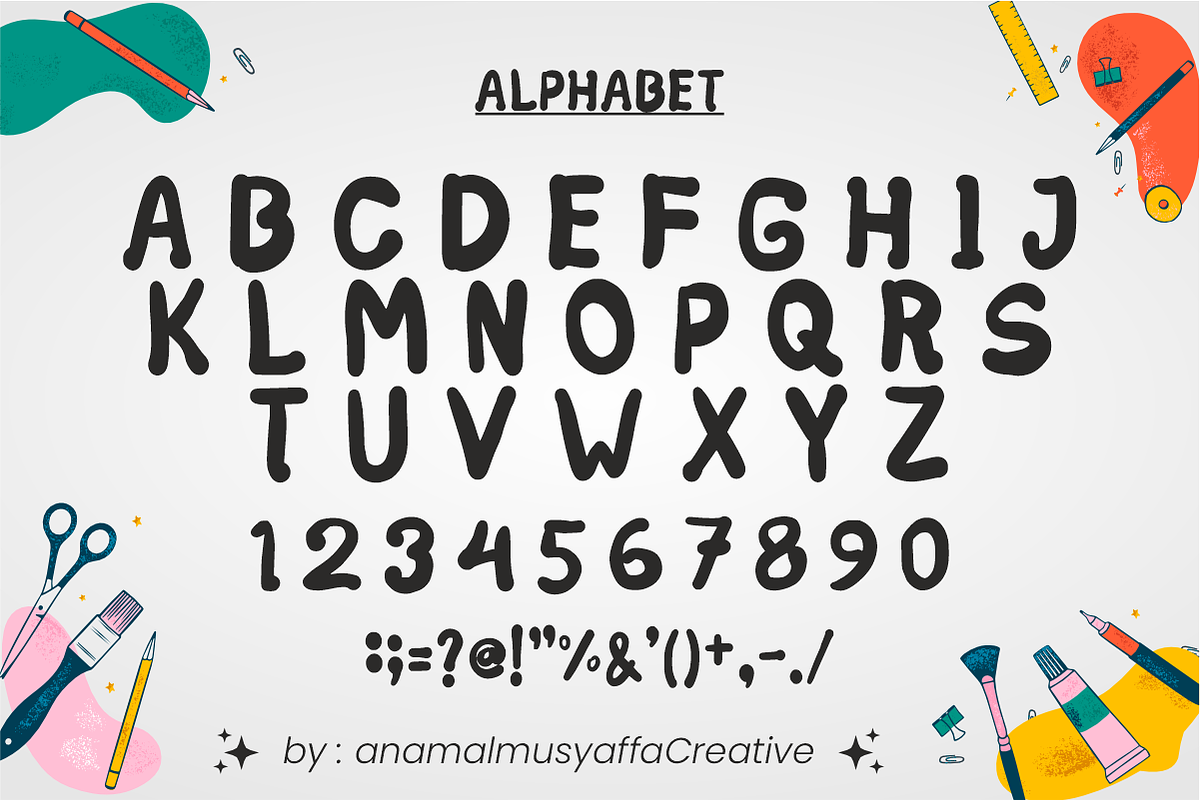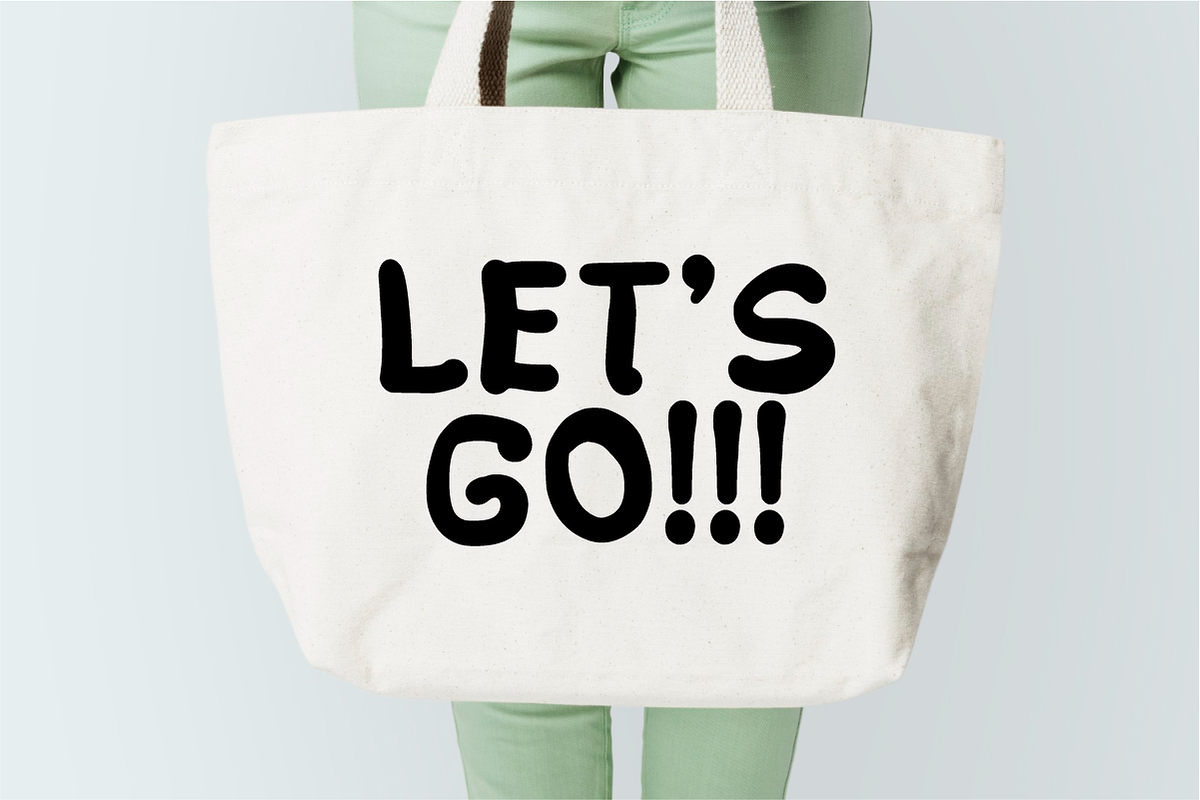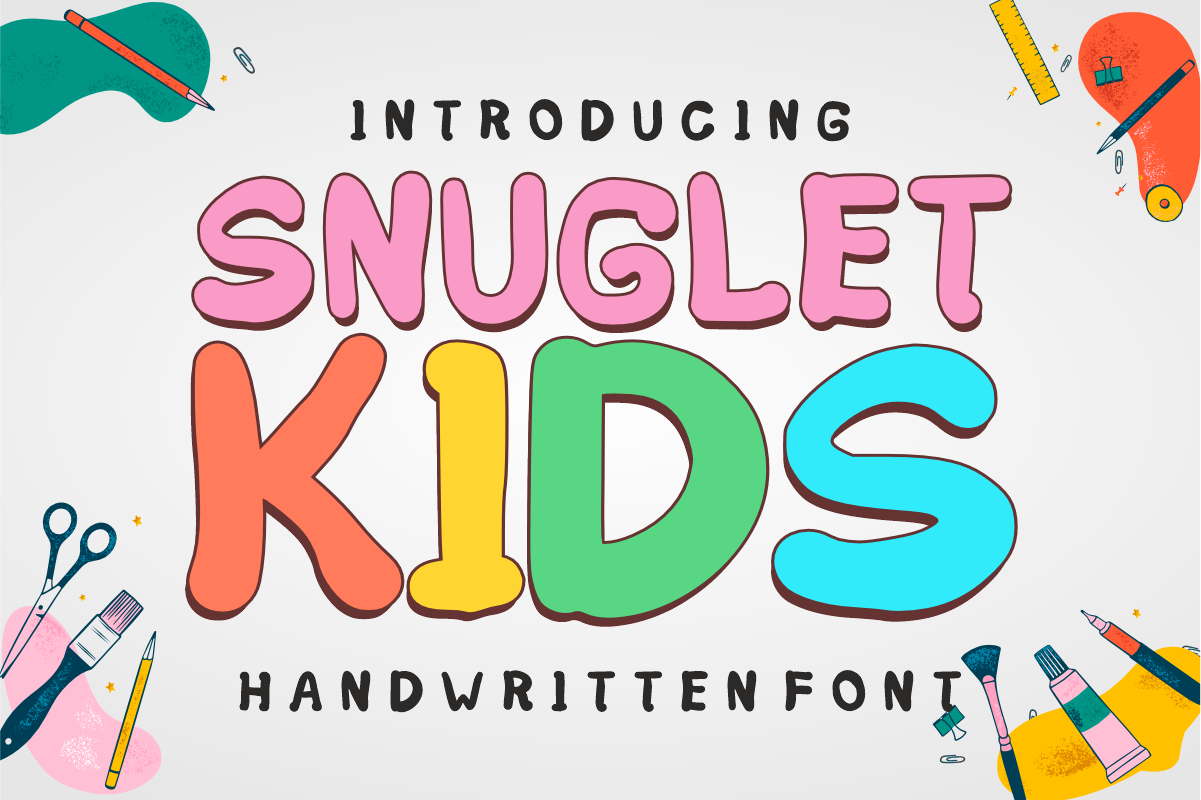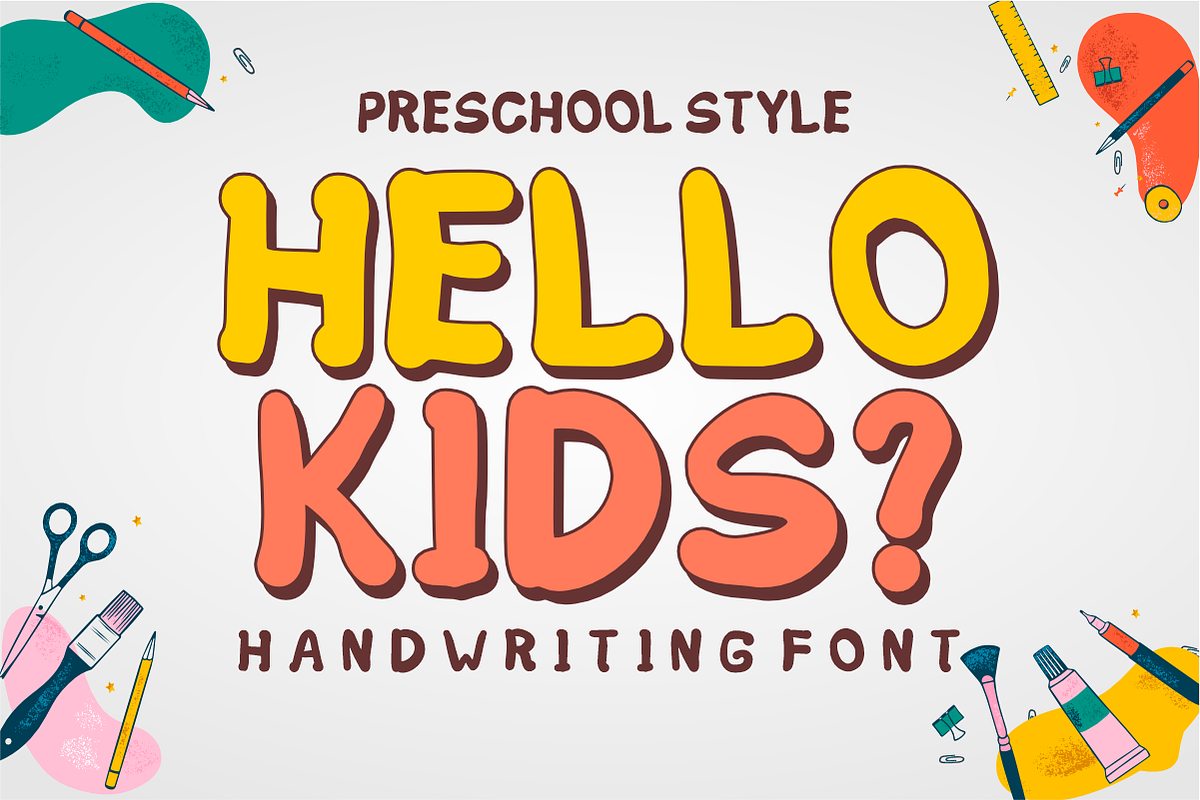
Snuglet Kids - Playful Display Font
Snuglet Kids - Playful Handwritten Display Font
Bring warmth, joy, and a burst of youthful energy to your layouts with Snuglet Kids! this ultra-chunky "Handwritten Font" features soft, rounded, and wonderfully irregular letterforms that instantly give your headlines a friendly, huggable charm.
Perfect for educational materials, kid-centric branding, and modern crafting projects, Snuglet Kids beautifully combines a casual doodle aesthetic with excellent legibility. It's bold, deeply expressive, and fully optimized for smooth, seamless performance across digital cutting tools and professional print setups.
All-Caps Character Set (Chunky, playful handwritten uppercase letters)
Numbers & Basic Punctuation (Essential, simple symbols included)
School Projects, Teacher Resources, & Classroom Activity Worksheets 🎒
Cricut, Silhouette, & DIY Kid-Friendly Craft Sublimation ✂️
Children’s Book Covers, Storybook Headers, & Cute Comics 📚
Kids' Product Packaging, Toy Labels, & Birthday Party Decor 🎈
Custom Stickers, Social Media Graphics, & Fun Apparel Prints 📱